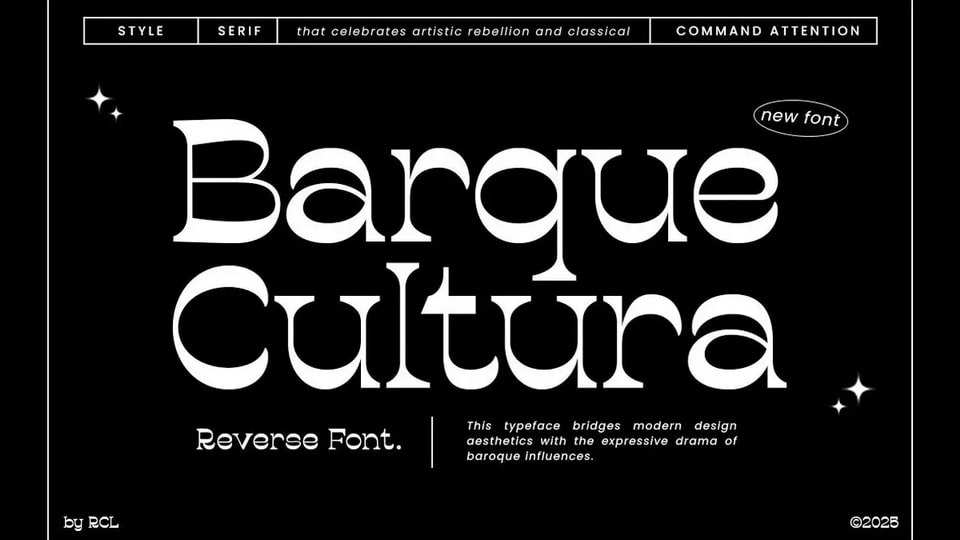
Download Barque Cultura font, a bold modern serif display typeface where dramatic flair meets refined aesthetics. Barque Cultura draws inspiration from baroque elegance and cultural expressionism,